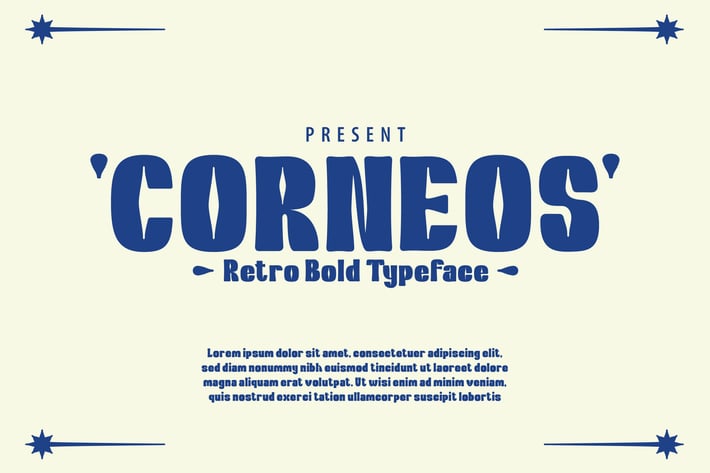
Corneos - Display Retro Typeface
Corneos is a bold sans serif font featuring modern, formal, bold, characters that seem to dance along the baseline.
Add this font to your most creative ideas, and notice how it makes them stand out!